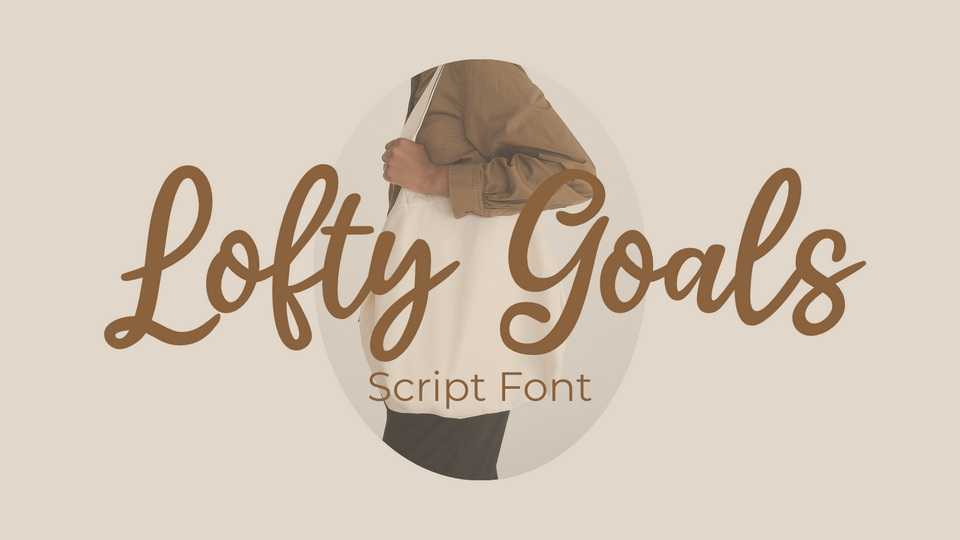
Download Lofty Goals font, a sweet, whimsical, flowing script typeface. Featuring characters that dance along the baseline, Lofty Goals font will add a fancy spark to any design project that you wish to create.
Designer: Niskala Huruf